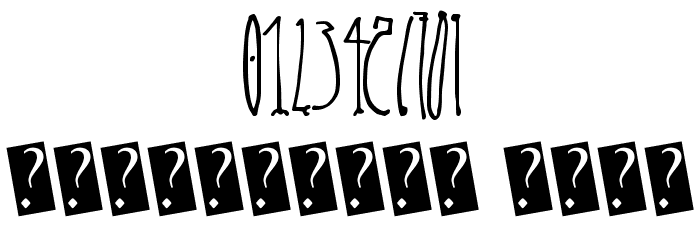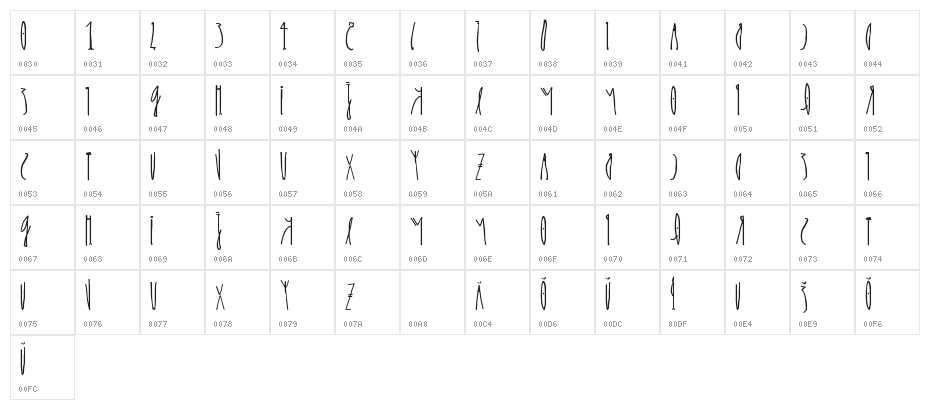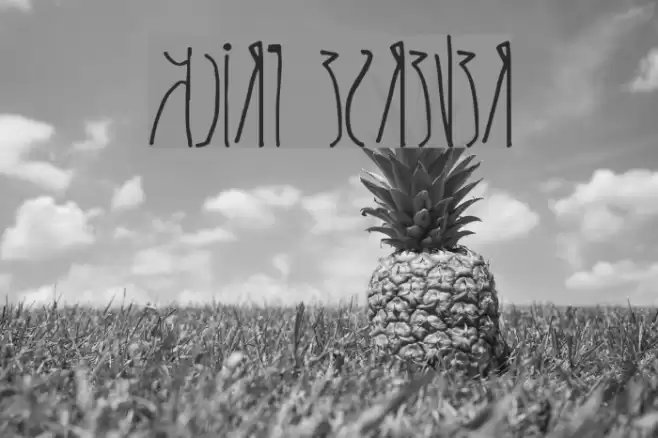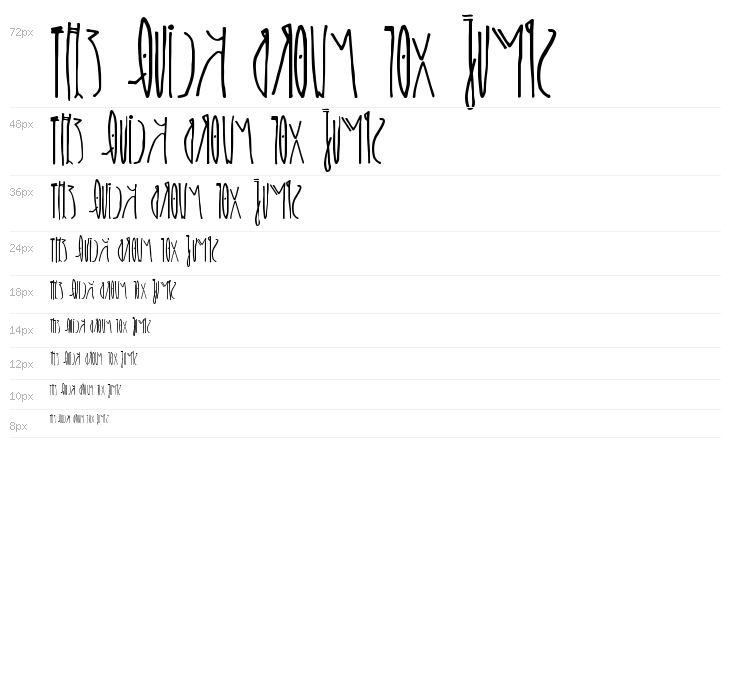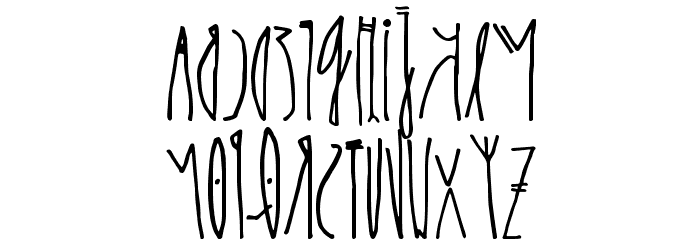
kcirF esreveR Font
kcirF esreveR Description
This font features a unique, reversed design where each character is mirrored, creating a visually intriguing and unconventional appearance. The letters are elongated and have a hand-drawn quality, with varying stroke thicknesses that add to its artistic flair. The numbers and special characters follow the same reversed style, maintaining consistency throughout the set. This font's distinctiveness makes it stand out, offering a creative twist on traditional typography.
| Use Case | Logos, Posters, Artistic Designs |
| Proposed Projects | Ideal for artistic projects, creative posters, unique branding, and any design work that seeks to capture attention with an unconventional style. |